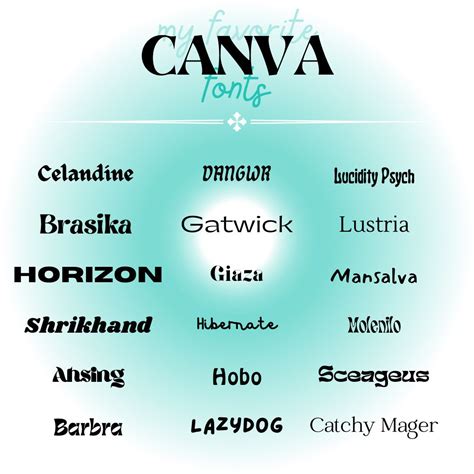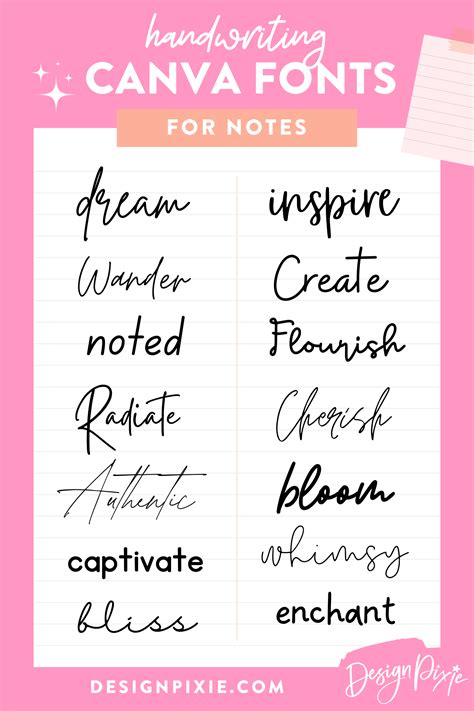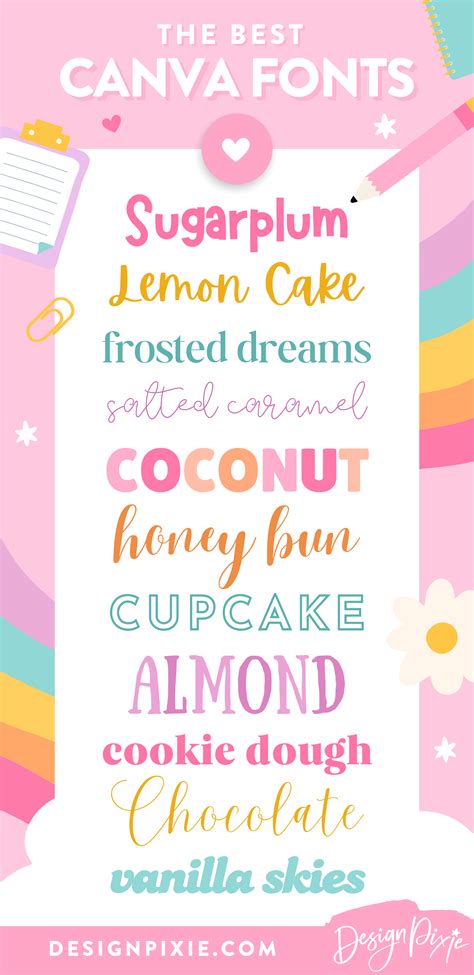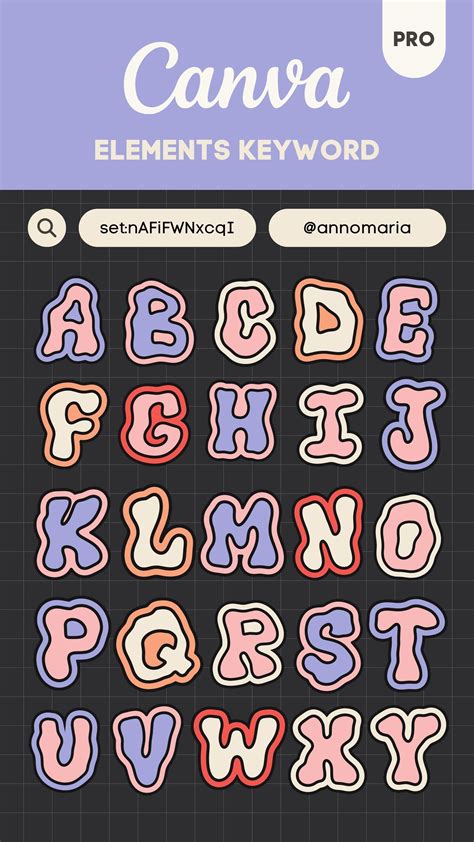
In the world of graphic design, choosing the right font can make or break a project. Whether you're creating social media graphics, presentations, or marketing materials, the font you select can significantly impact the overall aesthetic and readability of your design. For those who love all things cute and whimsical, Cute Canva Fonts offer a delightful way to add a touch of charm to your creations. Canva, a popular online design platform, provides a vast library of fonts that cater to various styles and themes. In this post, we'll explore the world of cute Canva fonts, how to use them effectively, and some tips for making your designs stand out.
What Makes a Font Cute?
Before diving into the specifics of Cute Canva Fonts, it's essential to understand what makes a font "cute." Cute fonts often have the following characteristics:
- Rounded Edges: Soft, rounded edges give fonts a friendly and approachable look.
- Playful Shapes: Unique and whimsical shapes can add a playful element to your text.
- Hand-Drawn Style: Fonts that mimic handwriting or have a hand-drawn appearance can evoke a sense of warmth and personality.
- Bold and Bright: Vibrant colors and bold strokes can make a font stand out and catch the eye.
Exploring Cute Canva Fonts
Canva offers a wide range of cute fonts that can be used for various projects. Here are some popular categories of Cute Canva Fonts and examples of each:
Handwritten Fonts
Handwritten fonts are perfect for adding a personal touch to your designs. They are often used for invitations, greeting cards, and social media posts. Some popular handwritten fonts in Canva include:
- Pacifico: A playful and casual font with a hand-drawn feel.
- Great Vibes: An elegant and flowing handwritten font.
- Dancing Script: A whimsical and dynamic font with a lot of character.
Bubble Fonts
Bubble fonts are characterized by their rounded, bubble-like shapes. They are great for adding a fun and playful element to your designs. Some popular bubble fonts in Canva include:
- Bubblegum Sans: A bold and playful font with a retro feel.
- Bubblegum: A whimsical and colorful font perfect for kids' projects.
- Bubblegum: A playful and bubbly font with a hand-drawn appearance.
Cute and Whimsical Fonts
These fonts often have unique shapes and designs that make them stand out. They are perfect for adding a touch of whimsy to your projects. Some popular cute and whimsical fonts in Canva include:
- Lobster: A bold and playful font with a vintage feel.
- Fredoka One: A fun and quirky font with a hand-drawn appearance.
- Permanent Marker: A bold and edgy font with a graffiti-inspired design.
How to Use Cute Canva Fonts Effectively
Using Cute Canva Fonts effectively requires a bit of creativity and an understanding of design principles. Here are some tips to help you make the most of these fonts:
Pairing Fonts
When using cute fonts, it's essential to pair them with complementary fonts to create a balanced design. Here are some tips for pairing fonts:
- Contrast: Pair a cute font with a more straightforward, sans-serif font to create contrast and balance.
- Size: Use different font sizes to create a hierarchy and guide the viewer's eye.
- Color: Choose colors that complement each other and enhance the overall aesthetic of your design.
Readability
While cute fonts can add a lot of charm to your designs, it's crucial to ensure they are readable. Here are some tips for maintaining readability:
- Size: Use a font size that is large enough to be easily read.
- Spacing: Ensure there is enough space between letters and lines of text.
- Background: Choose a background color that contrasts with the font color to enhance readability.
Consistency
Consistency is key when using cute fonts in your designs. Here are some tips for maintaining consistency:
- Style: Stick to a consistent style throughout your design to create a cohesive look.
- Color Scheme: Use a consistent color scheme to tie your design elements together.
- Branding: Ensure your fonts align with your brand's overall aesthetic and messaging.
Tips for Making Your Designs Stand Out
To make your designs stand out, consider the following tips:
Use High-Quality Images
High-quality images can enhance the overall aesthetic of your design and make your cute fonts pop. Choose images that complement your font choice and add visual interest to your design.
Experiment with Colors
Colors can significantly impact the mood and tone of your design. Experiment with different color schemes to find the perfect combination that highlights your cute fonts and creates a visually appealing design.
Add Graphics and Icons
Graphics and icons can add an extra layer of visual interest to your design. Choose graphics and icons that complement your cute fonts and enhance the overall aesthetic of your design.
Use White Space Effectively
White space, or negative space, can help create a clean and uncluttered design. Use white space effectively to highlight your cute fonts and make your design more visually appealing.